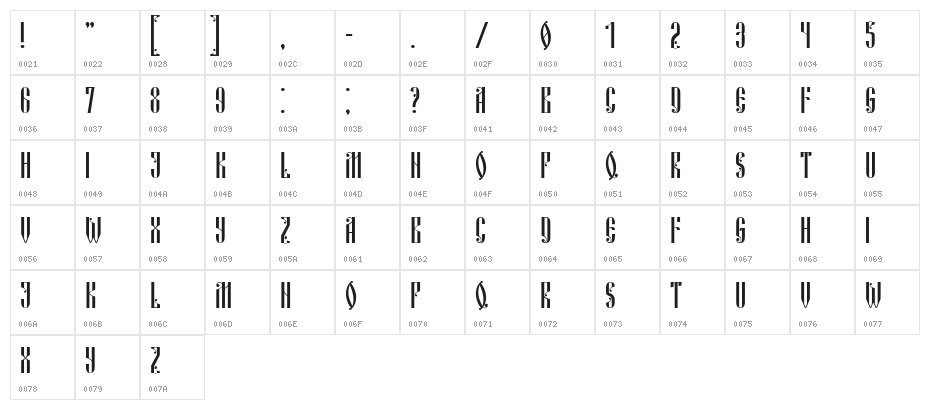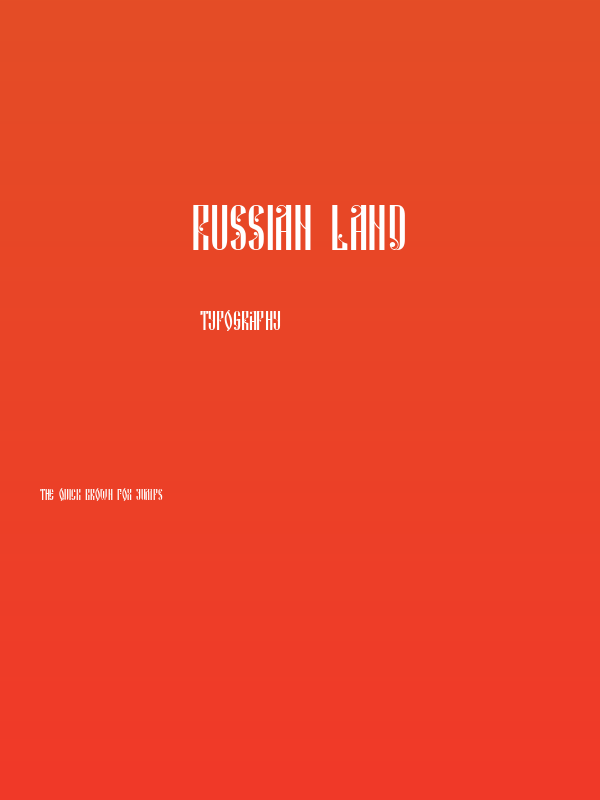
Russian Land Font
Russian Land Description
This font features a bold and decorative style with a distinctively ornate appearance. Each character is crafted with intricate details, including flourishes and curls that add a touch of elegance and sophistication. The uppercase and lowercase letters maintain a consistent height, contributing to a uniform look across the text. The numbers and special characters are designed to match the elaborate style of the alphabet, ensuring a cohesive visual presentation. The overall design is striking and eye-catching, making it ideal for projects that require a strong visual impact.